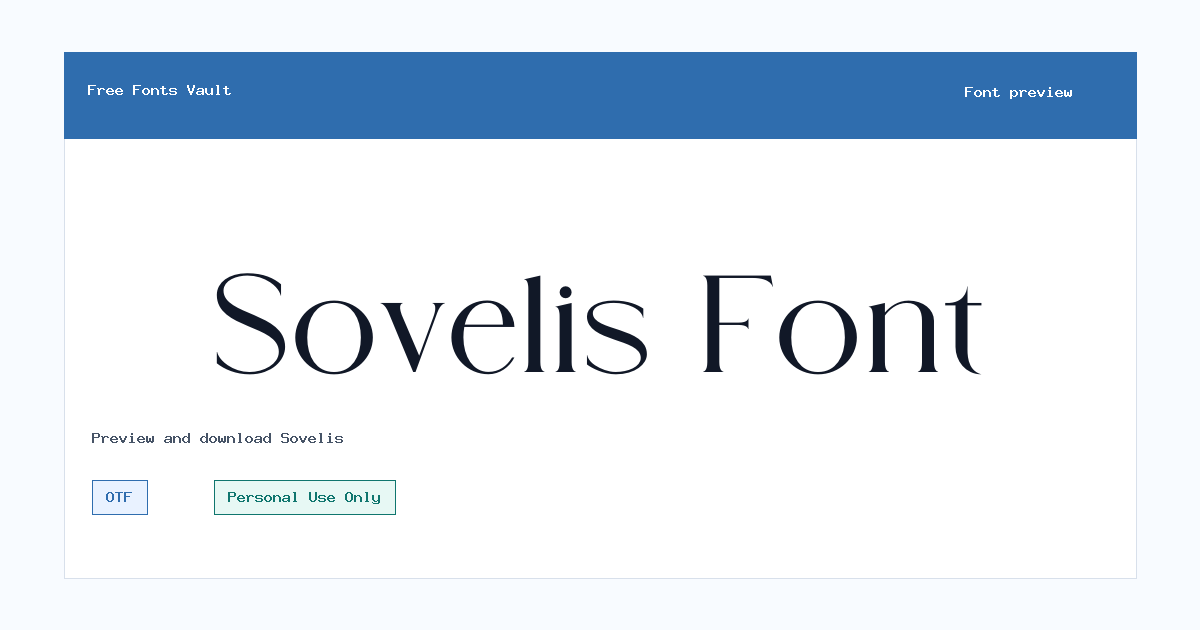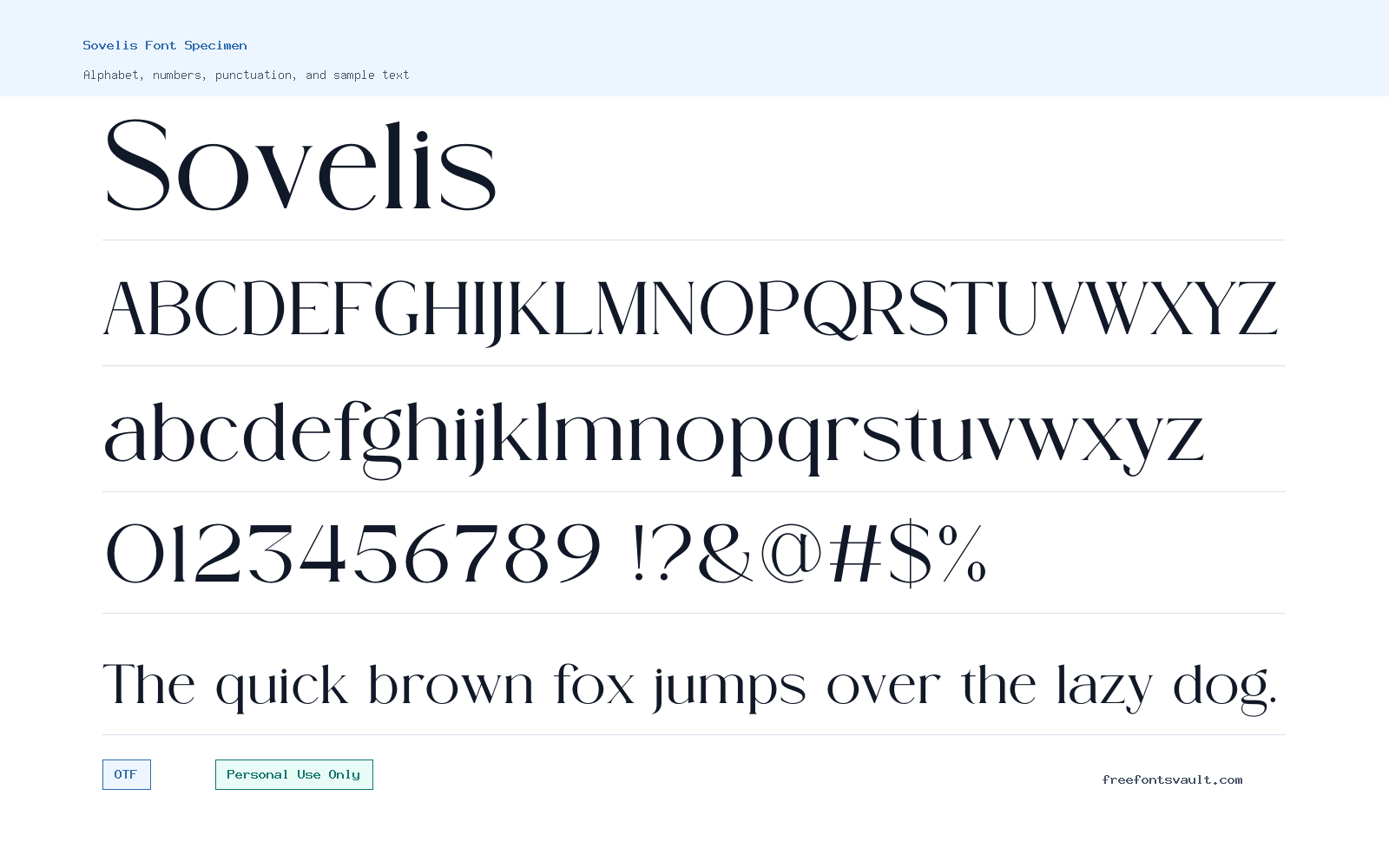
Sovelis
Sovelis font.
Sovelis is a modern display serif with a clean, high-contrast look made for polished headings and short pieces of text. Its refined shapes work best when the letters have room to stand out.
About Sovelis
Sovelis has the sharp, elegant feel of a contemporary serif, with contrast between thick and thin strokes and a more decorative approach to capitals. The family is presented with alternates and ligatures, which can help create more distinctive wordmarks, invitations, editorial titles, and social graphics when used in software that supports OpenType features.
Use Sovelis for short text rather than long reading passages. It suits names, headlines, logo drafts, wedding stationery, fashion-style layouts, magazine covers, posters, website hero text, and social media headers. In the preview tool, test uppercase words, brand names, and letter pairs such as ST, EL, VA, and LI to see how the spacing and ligatures behave. If the design feels too delicate at small sizes, pair it with a simpler sans serif or text serif for body copy.
- Modern high-contrast serif style with refined display details
- Alternates and ligatures are noted for supported design software
- Best suited to short, elegant typography rather than dense paragraphs
- Logos and wordmark drafts
- Wedding invitations and stationery
- Fashion or editorial headlines
- Posters, cover titles, and social media headers
- Website hero text and short branding phrases
MyFonts lists Sovelis as designed by Farchan and published by Gridline Type. Creative Fabrica also lists the font by Gridline type.
What kind of font is Sovelis?
Sovelis is a modern display serif with high-contrast strokes and elegant details. It is better for headings, logos, invitations, and short display text than for long paragraphs.
Does Sovelis include alternates or ligatures?
Marketplace descriptions mention alternates and ligatures. To use them, open the font in an app with OpenType feature support, such as Adobe Illustrator, Photoshop, InDesign, Affinity apps, or similar design software.